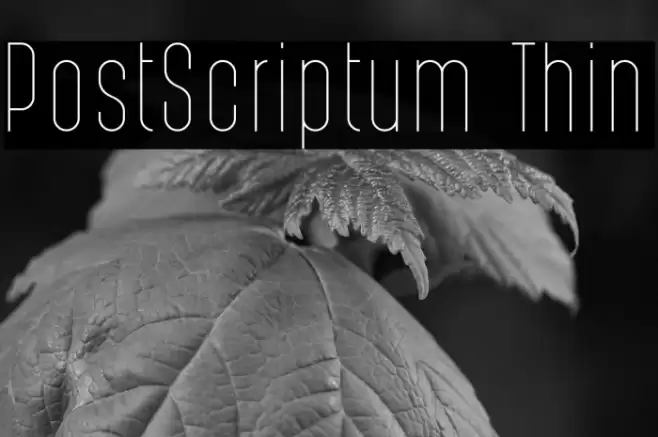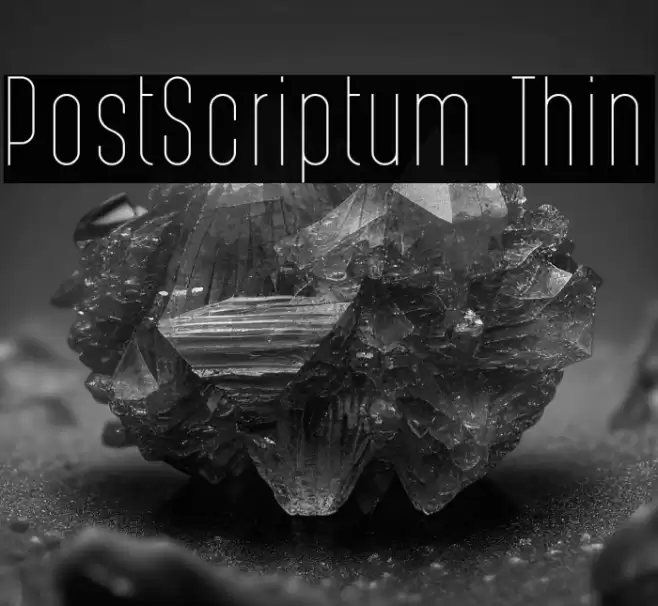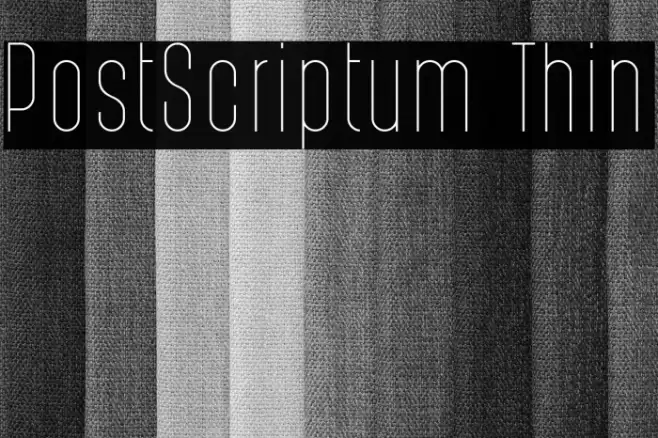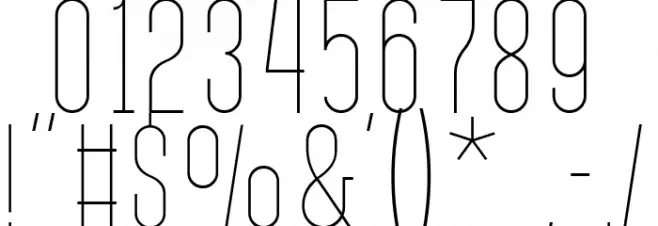
PostScriptum Thin Font
PostScriptum Thin Description
This font is characterized by its thin, elongated letterforms that convey a sense of elegance and modernity. The characters are tall and narrow, with a consistent stroke width that gives it a sleek and minimalist appearance. The uppercase and lowercase letters maintain a uniform height, enhancing readability while preserving a stylish aesthetic. The numerals and special characters are designed to complement the alphabet, maintaining the same thin and elongated style. This font is well-suited for projects that require a contemporary and sophisticated look.
A thin, elongated, and modern font with a sleek and minimalist style from Uncategorized fonts.
- Proposed Projects: Ideal for fashion magazines, luxury branding, minimalist posters, and modern web design.